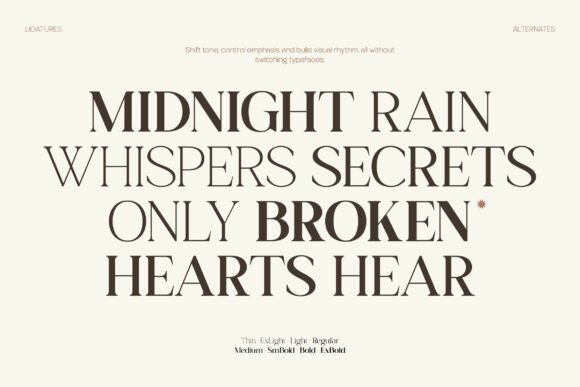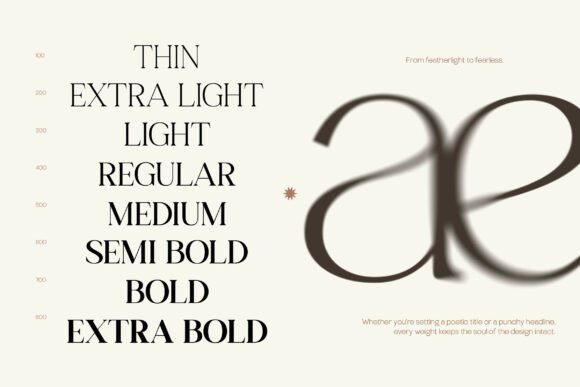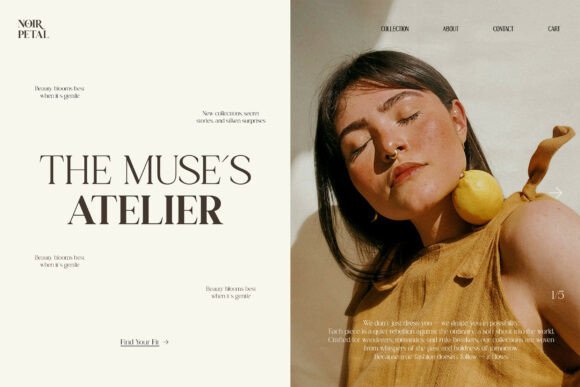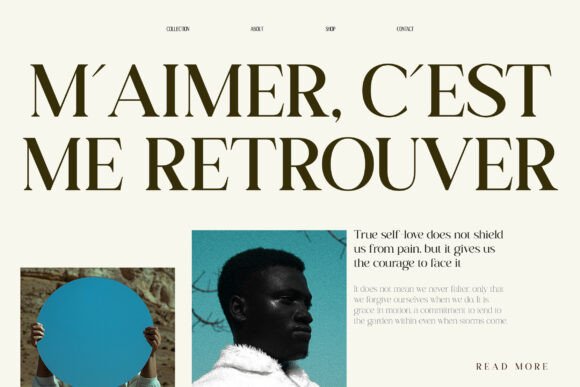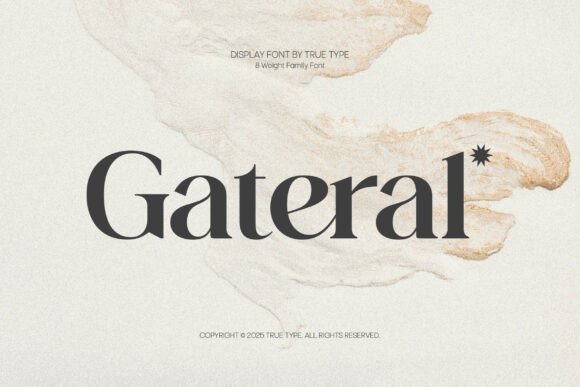
Introducing Gateral Font: Elevate Your Design with Clarity and Elegance
In the world of typography, finding the perfect font that balances clarity, balance, and elegance can be a daunting task. However, look no further than Gateral Font, a serif typeface designed to meet the demands of modern design. With its clean structure, gentle contrast, and subtle elegance, Gateral is the ideal choice for a wide range of applications, from branding and editorial design to packaging and digital content.
Clean Structure, Gentle Contrast, and Subtle Elegance
Gateral’s design is centered around providing a clear and readable experience, making it perfect for both large and small sizes. Its clean structure and gentle contrast ensure that your message is conveyed with confidence, without feeling cold or overly formal. This balance of professionalism and approachability makes Gateral an excellent choice for designers and crafters looking to create a lasting impression.
One of the standout features of Gateral is its versatility. This typeface is built to be flexible, making it suitable for a variety of uses, including:
• Editorial layouts: Create stunning magazine spreads, articles, and blog posts with Gateral’s elegant and refined design.
• Brand identities: Establish a strong brand presence with Gateral’s confident and approachable tone.
• Books: Perfect for novels, textbooks, and other publications where readability is paramount.
• Logos: Create a lasting impression with Gateral’s unique and memorable design.
• Presentations: Elevate your presentations with Gateral’s clean and professional aesthetic.
• Social media: Stand out on social media platforms with Gateral’s refined and engaging typography.
A Typography that Feels Refined but Not Rigid
Gateral’s design philosophy is centered around creating a typeface that feels refined but not rigid. Its subtle elegance and gentle contrast ensure that your typography feels sophisticated, yet approachable. This balance is perfect for designers and crafters looking to create a lasting impression without feeling constrained by rigid typography.
What Sets Gateral Apart?
At True Type, the team designs fonts that feel honest, warm, and easy to connect with. Gateral is no exception. With its focus on clarity, balance, and elegance, this typeface is built to help your words speak clearly and confidently. Whether you’re a designer, crafter, or simply someone looking for a reliable typography solution, Gateral is the perfect choice.
Key Features of Gateral Font
• Serif typeface designed for clarity and elegance
• Clean structure and gentle contrast for optimal readability
• Suitable for a wide range of applications, from branding to digital content
• Built to be readable at both large and small sizes
• Perfect for editorial layouts, brand identities, books, logos, presentations, and social media
• Flexible and refined typography that feels confident, yet approachable
In conclusion, Gateral Font is a versatile and elegant serif typeface that is perfect for designers and crafters looking to elevate their design. With its clean structure, gentle contrast, and subtle elegance, Gateral is the ideal choice for a wide range of applications. Explore the True Type collection today and discover the perfect typography solution for your next project.